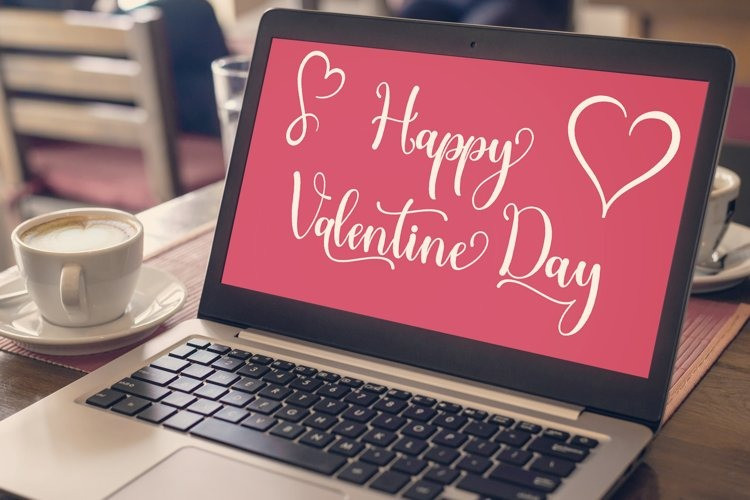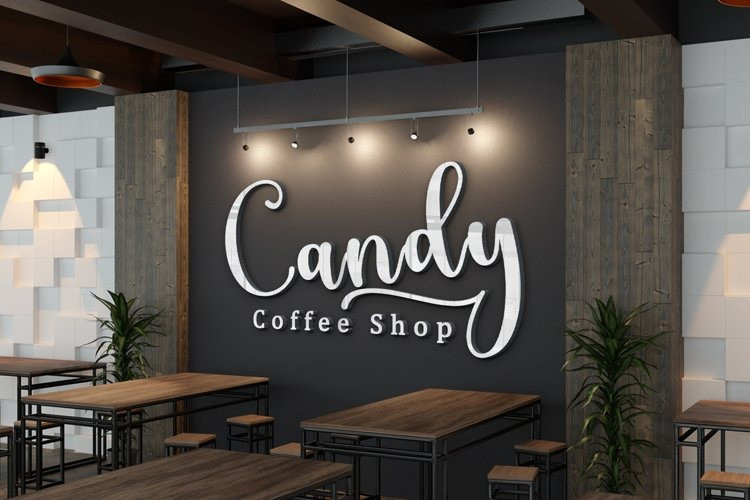
Basyirah Calligraphy Font
Basyirah Script is a chic hand calligraphy, smooth, modern and clasik, calligraphy wavy, which was created to meet the needs of your next design project. Basyirah Script, Can used for various purposes. such as the title, signature, logo, correspondence, Name Card, Quotes, wedding invitations, letterhead, signage, labels, newsletters, posters, badges, etc.
Basyirah Script It contains a full set of lowercase & uppercase, a large range of punctuation, numerals, and multilingual support. The font also contains several ligatures, stylistic alternates, and Stylistic Set, for you who have opentype, or through a panel of glyphs capable software e.g. Adobe Photoshop; Adobe Illustrator, Corel Draw and Adobe InDesign.